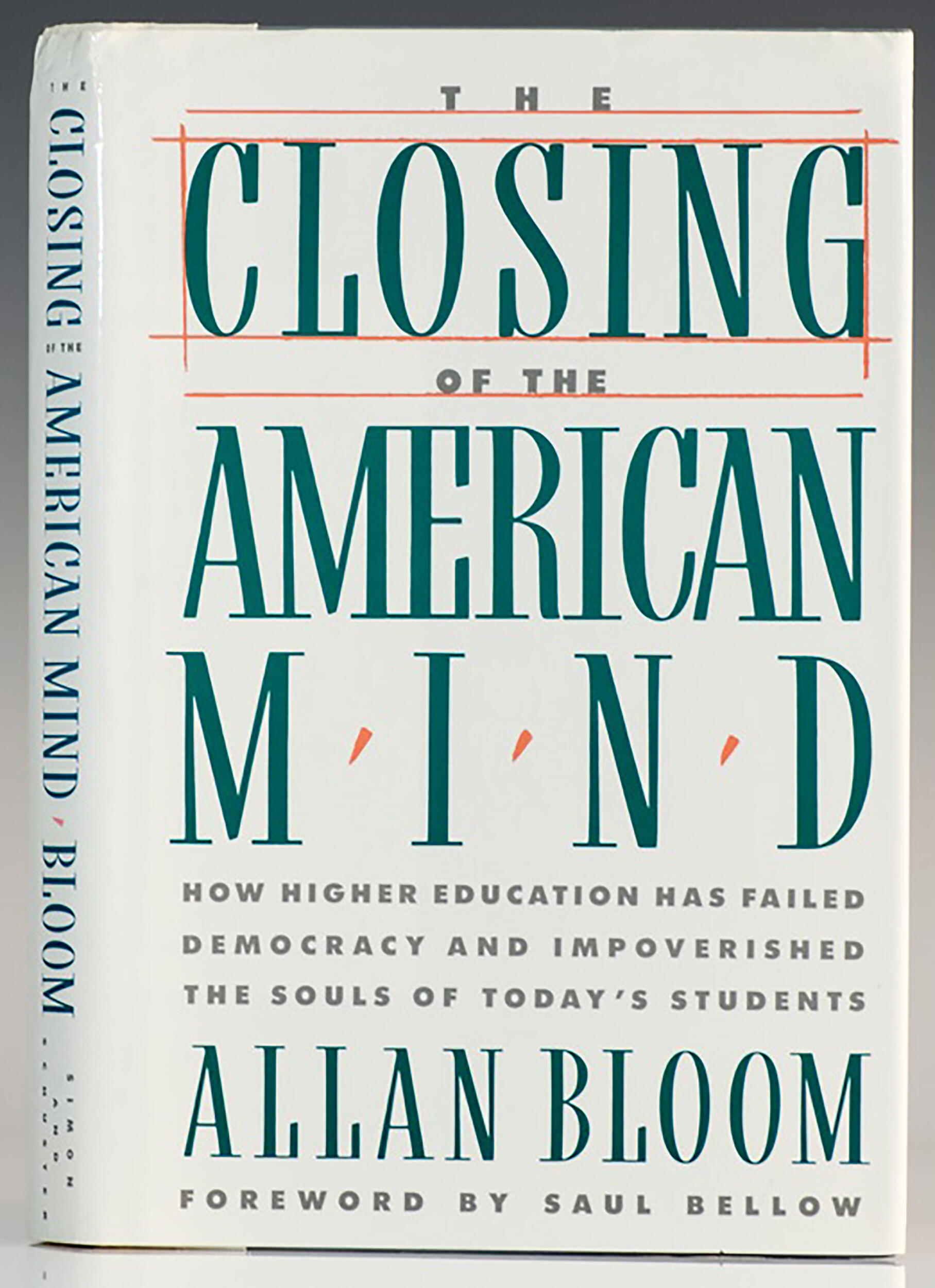
"The Closing of the American Mind" by Allan Bloom
Can anyone please identify the two typefaces on the cover of this book (the condensed hybrid serif and the heavy sans)? Apologies if my terminology isn't accurate. Thank you!
Thank you Kevin and Miss Nobody. I had Futura Bold plugged in as a place holder, but I wasn't sure which foundry/version. It's amazing that the serif typeface is such a challenge, with all the AI resources we have today. I even checked Rookledge's, which I still love (wish I could find their version of "Doric," "Adonis" and "Video"). Corvinus was the first thing that jumped to mind. Gimlet is a good sub, but I want to nail this. I'll report back if I find the match. Thanks for all your efforts!
Also similar but not match: Gimlet (display condensed regular).
Gimlet, compressed at 69%, is close in spirit. Thanks for that suggestion! It's still going to drive me crazy if I can't nail this precisely.
There are many typefaces with a similar flair, but they all tend to have flat sides on the round characters, especially in the narrower styles. The only one I could find that remains mostly curved is Baltica, Paratype’s interpretation of Candida, that however still lacks the specific quirks of the sample.
Thank you, Riccardo. Gimlet at 69% horizontal scale is the closest thing, so I fed that to ChatGPT and it replied, "My hunch: what you’re looking at is not a digital font at all, but rather photo-lettering (Phototype) or custom lettering drawn specifically for the Simon & Schuster jacket in 1987. Back then, book designers often worked with type houses that offered condensed Moderns in multiple widths — many of which never got digitized." I don't know where that gets me, but I thought it was pretty insightful.